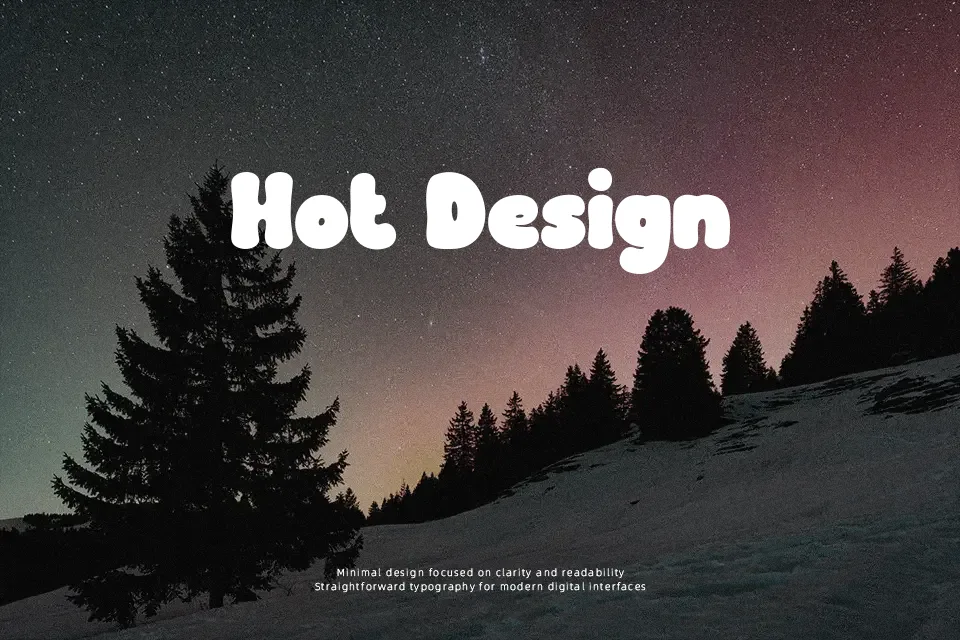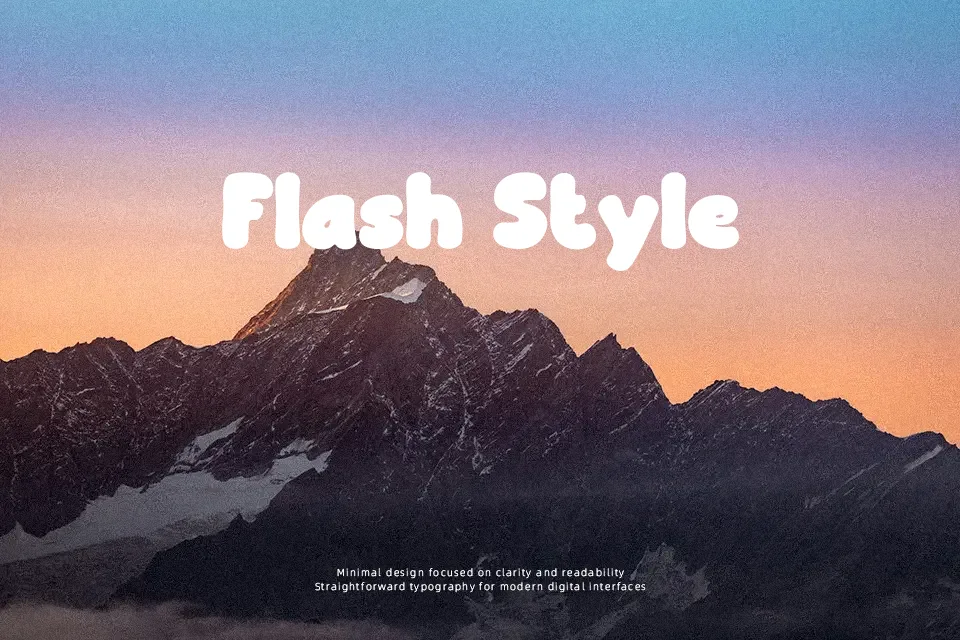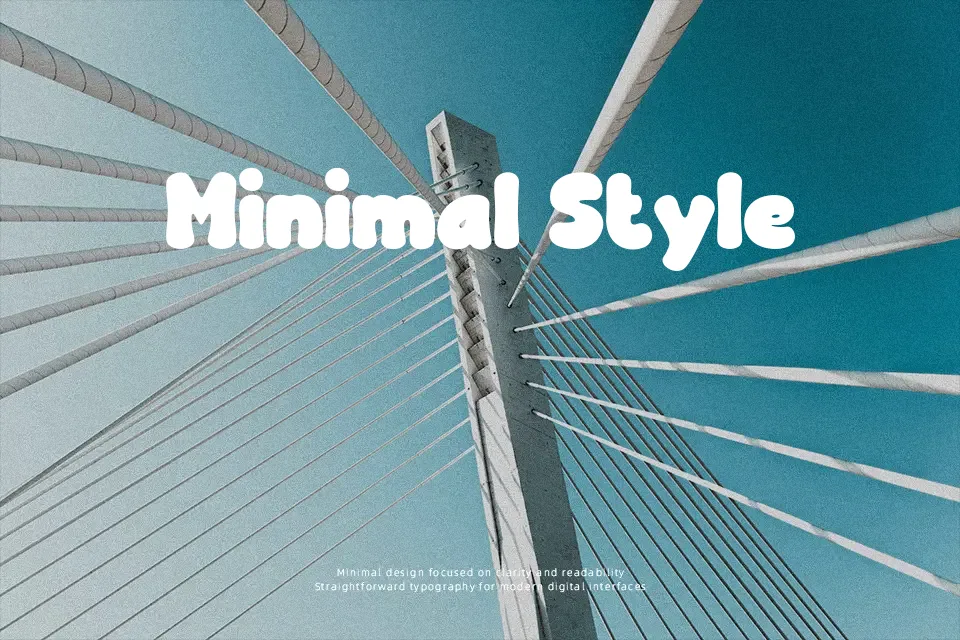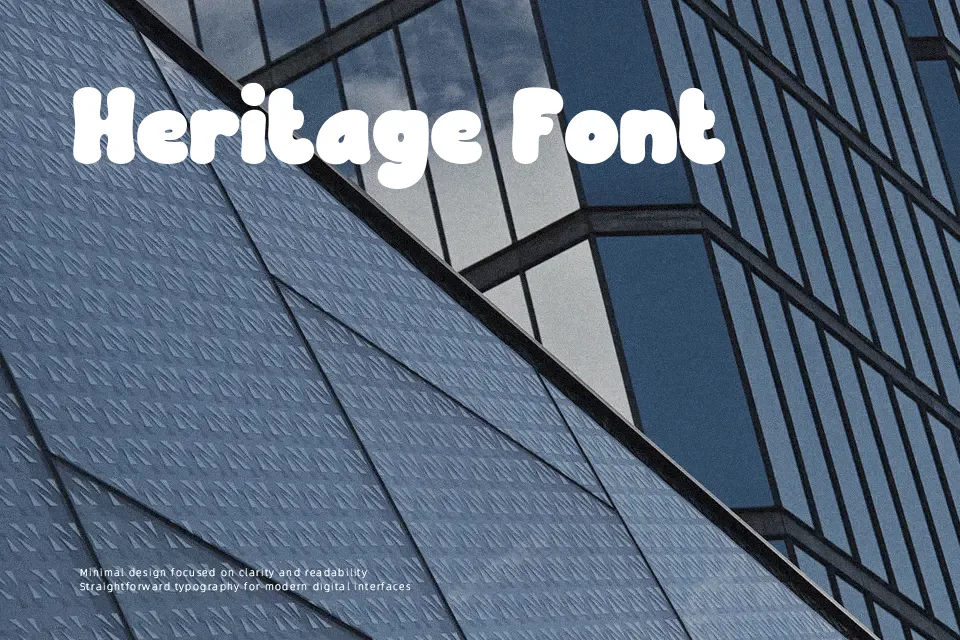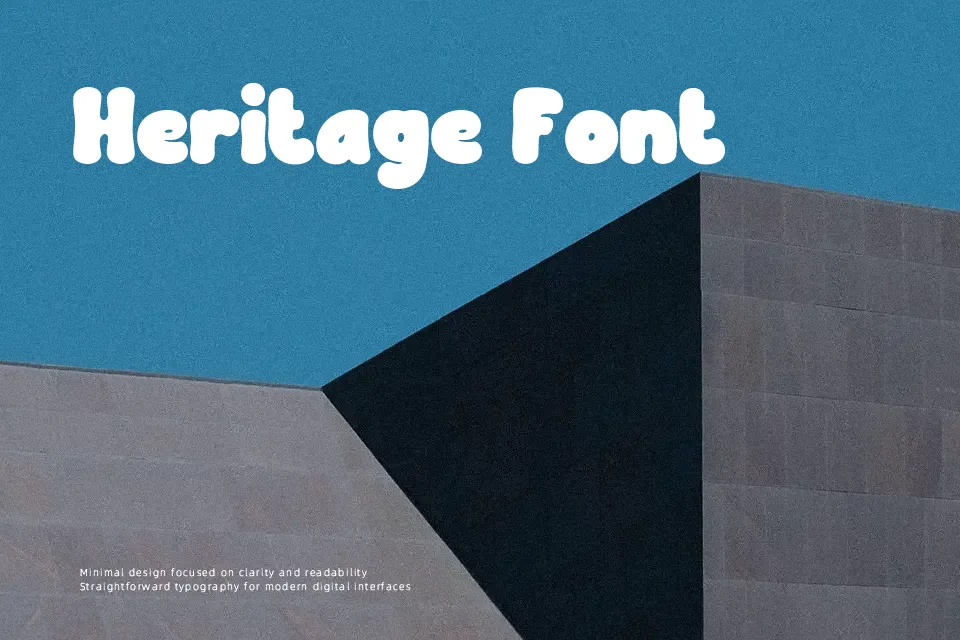
Tropical Vibes Font
Featuring rounded contours and exaggerated stroke weights, Tropical Vibes Font creates a friendly retro display personality across every glyph. The letterforms exhibit consistent heavy proportions with minimal contrast between vertical stems and curved terminals. Generous interior counters preserve individual character identification, while comfortable letter spacing prevents adjacent shapes from colliding at headline scales. This typeface performs reliably in packaging titles, apparel prints, and festival banners where bold presence is vital. However, the dense weight significantly reduces legibility across continuous paragraph text and compact interface labels. In practice, the design functions most effectively when given sufficient breathing room in short, prominent typographic compositions.
Best For: summer event posters, retro apparel graphics, beverage packaging labels, food truck signage
Not Ideal For: long paragraph text, corporate documentation, mobile interface body copy, dense editorial layouts
Perfect for branding, headline, and logo, with a bold and cartoon style.